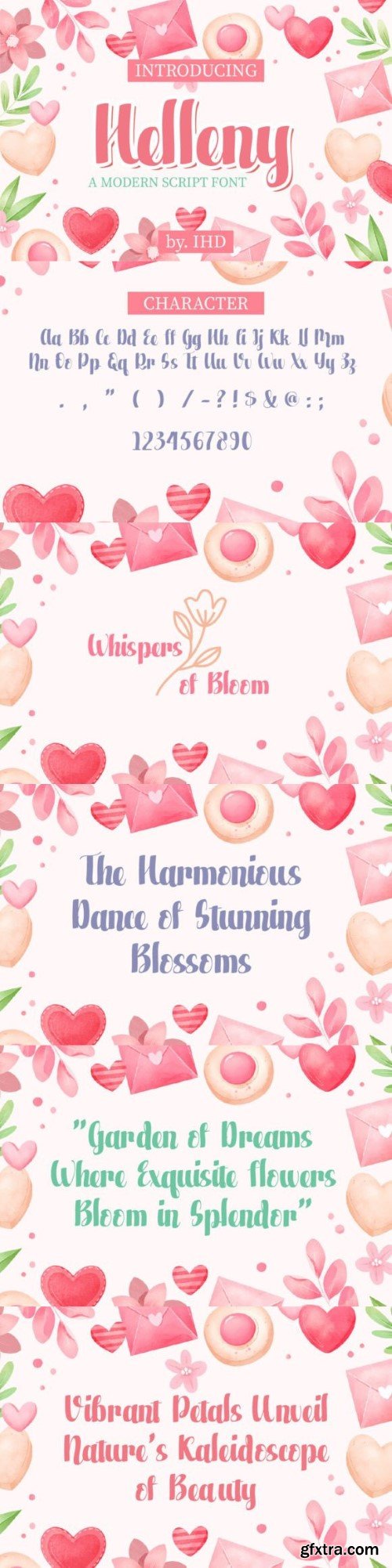
Helleny is a stylish and modern script font that adds a touch of elegance to your text. With its flowing curves and contemporary design, Helleny brings a fresh and sophisticated vibe to any project. Perfect for invitations, branding, or any creative endeavor, this script font effortlessly blends a timeless feel with a modern twist. Choose Helleny for a touch of chic charm in your designs.